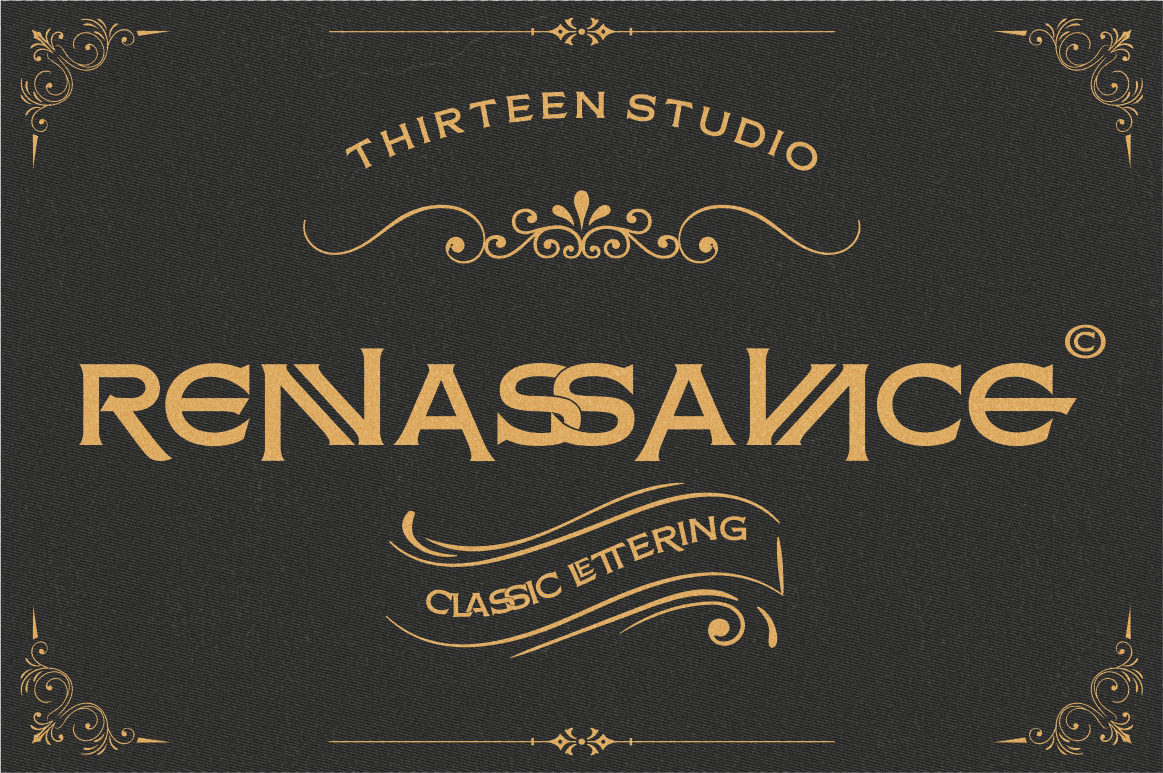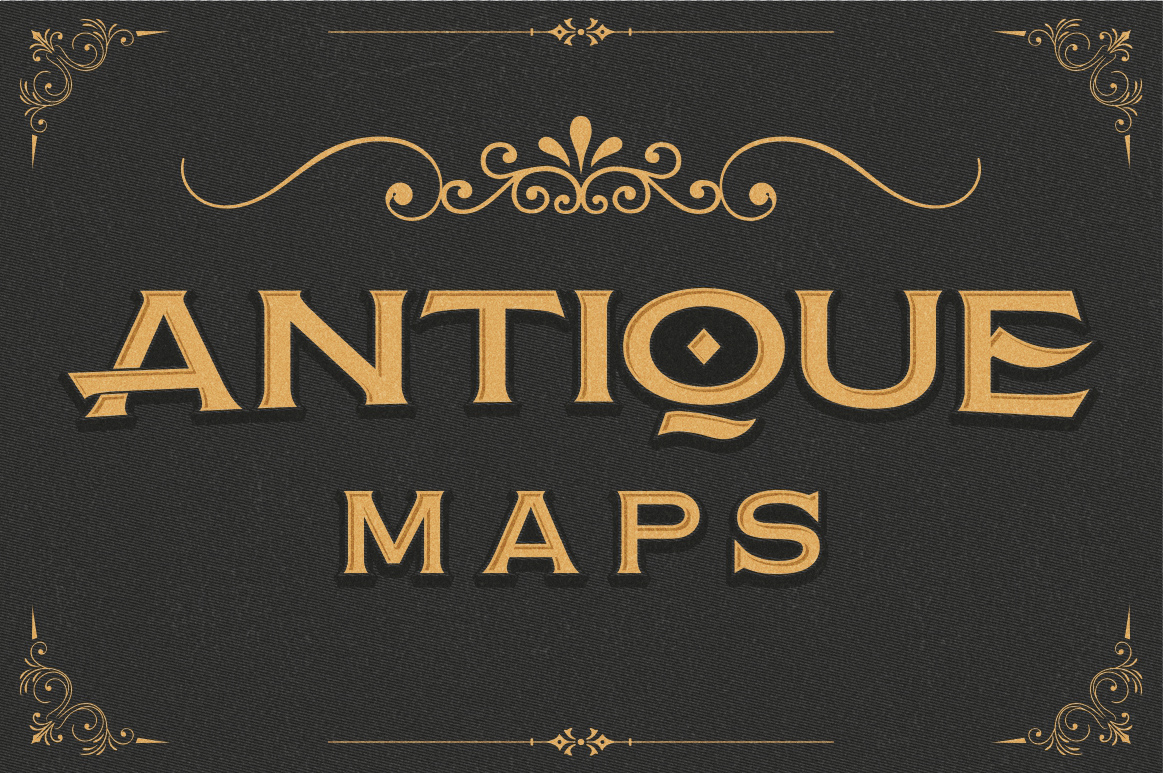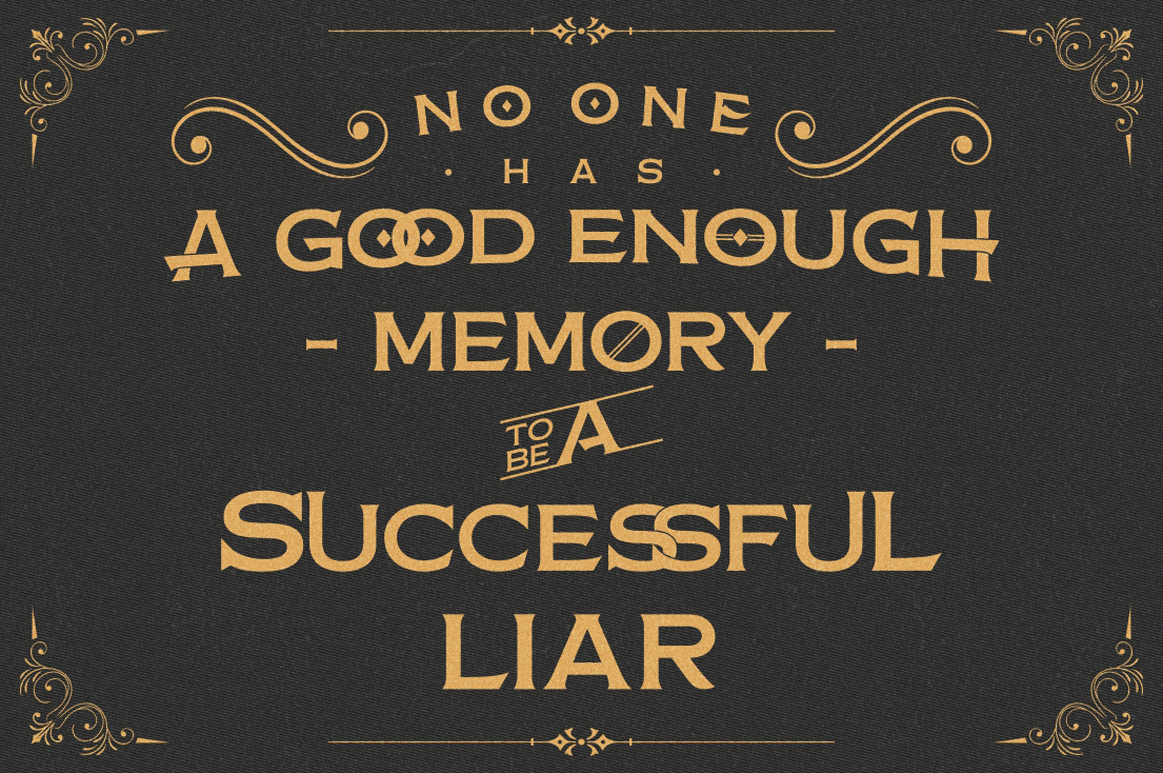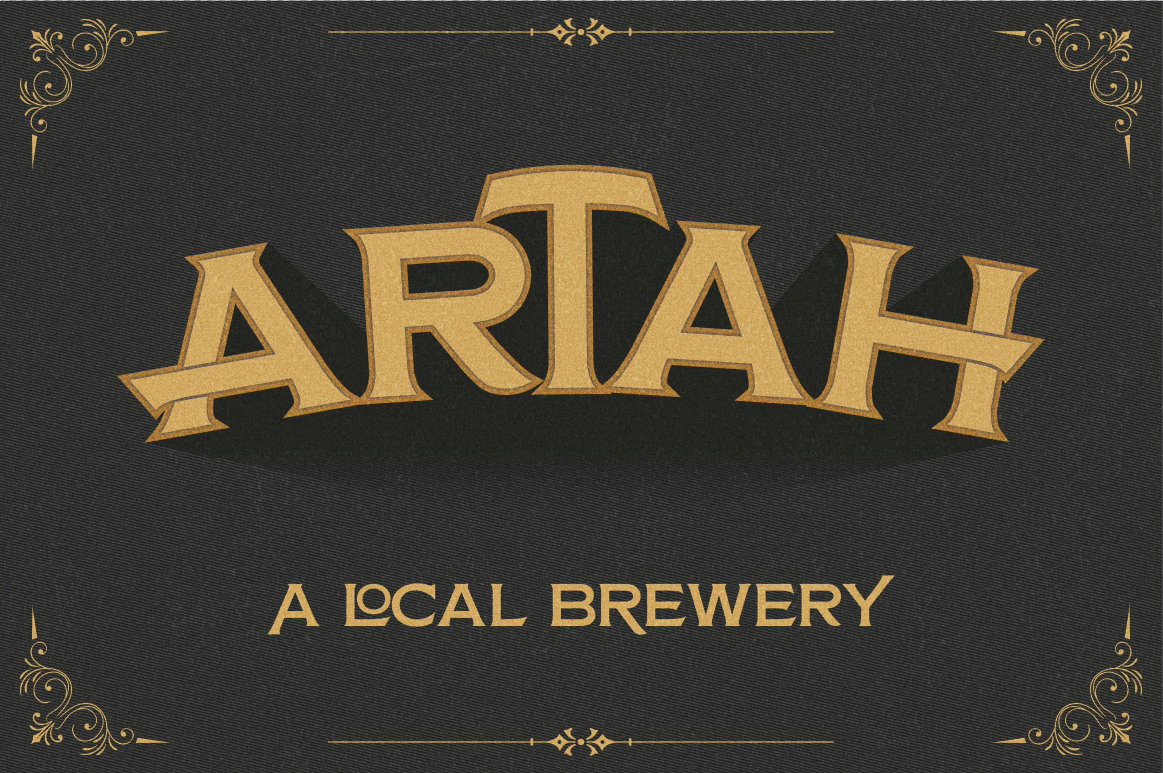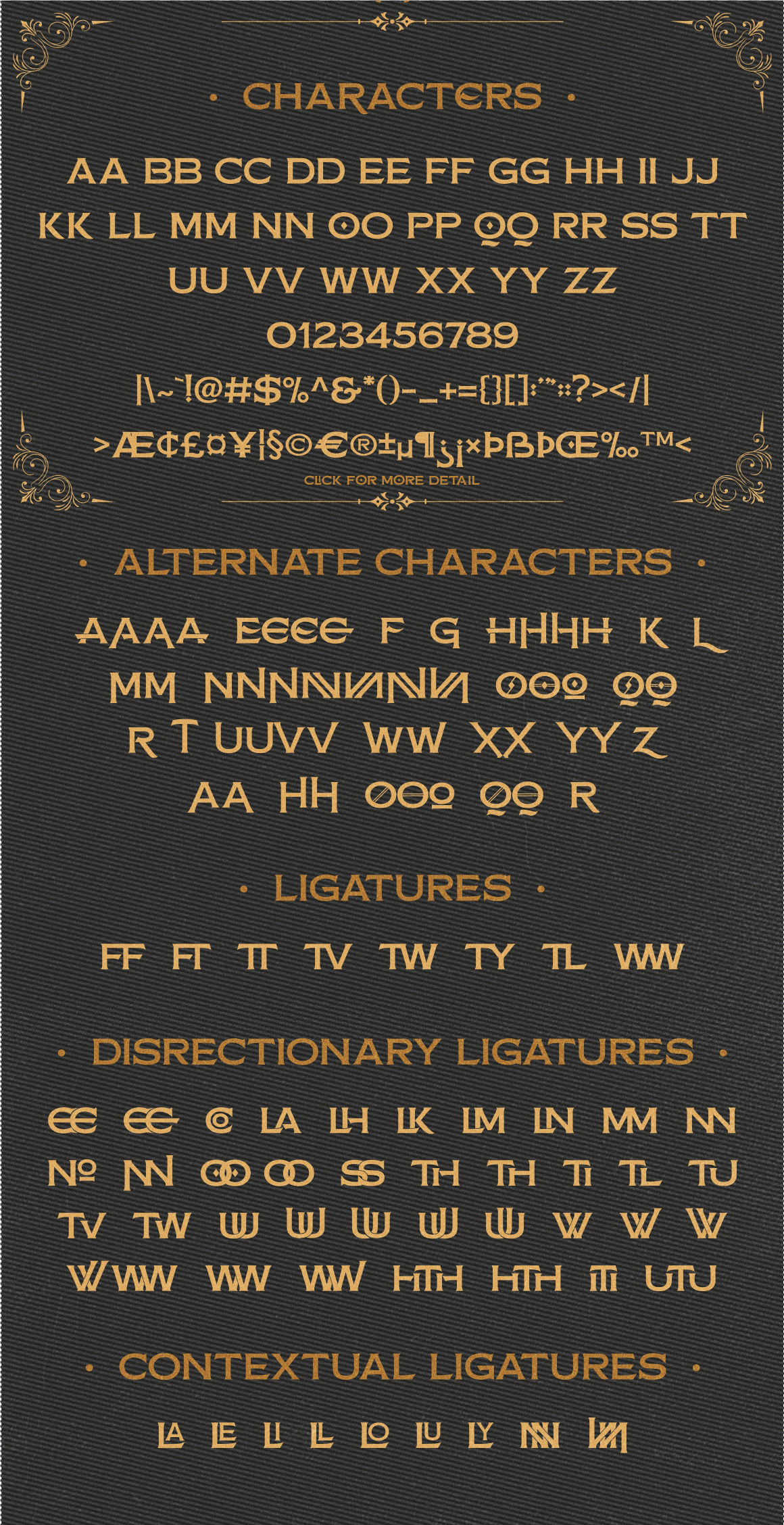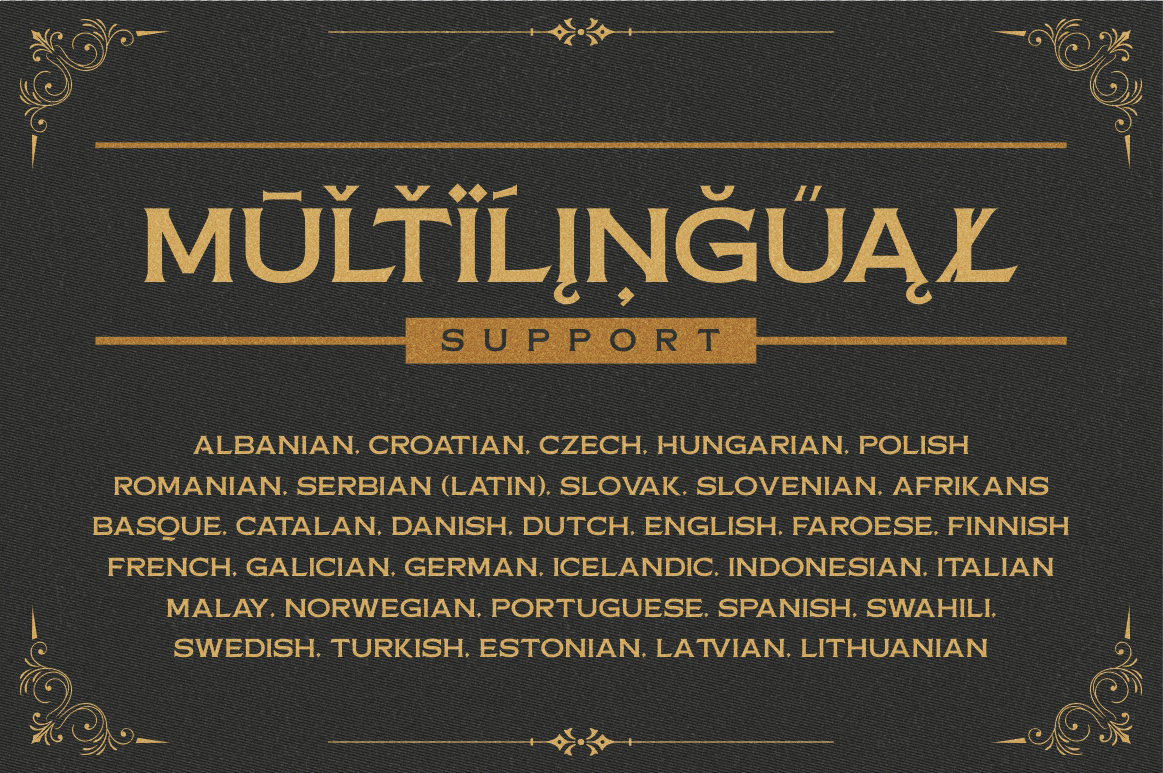
Renassance
Renassance Typeface
Renassance was the classic nineteenth century engraver’s typeface, consisting of capitals and small caps only. This typefaces are perfectly used for sign panel, bussines card, whiskey label, etc. This typefaces was supported 32 different languages.